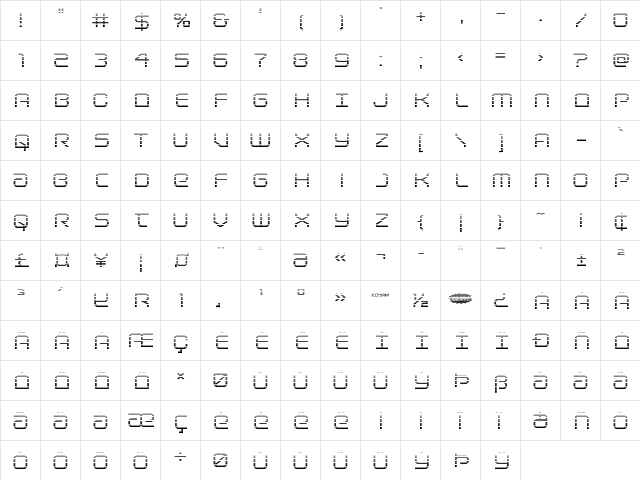
Light Brigade Gradient Regular
Design Context for Light Brigade Gradient Typeface
Light Brigade Gradient is a composed and adaptable typeface that performs quietly and consistently across a wide range of design contexts. The delicate stroke weight brings airiness and refinement to layouts.
Pro Tip: Pair Light Brigade Gradient with a font of contrasting weight or personality to build a more expressive typographic hierarchy.